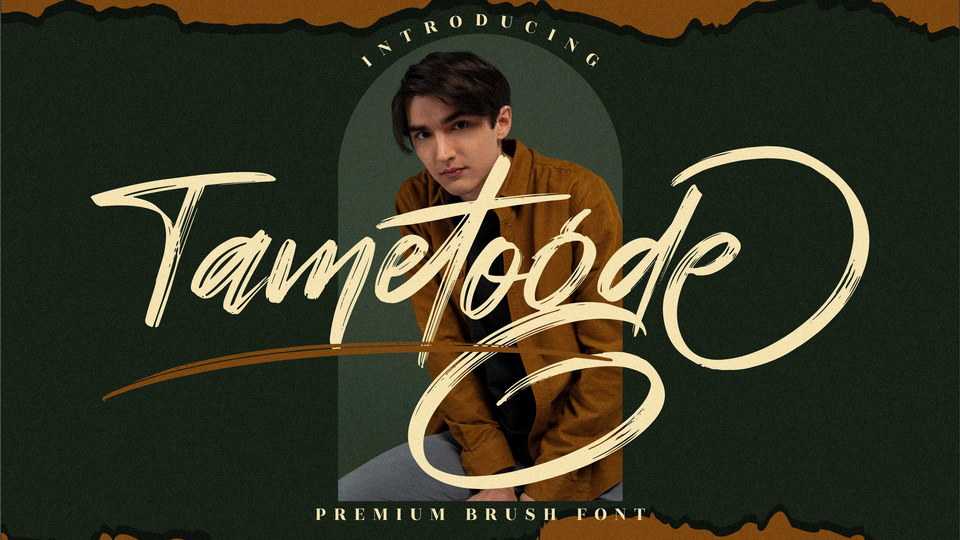
Download Tametogde font, a cursive and bold brushed script typeface neatly crafted and highly detailed. Tametogde will be a wonderful asset, as it has the potential to enhance any creation.
Designer: Perspectype Studio